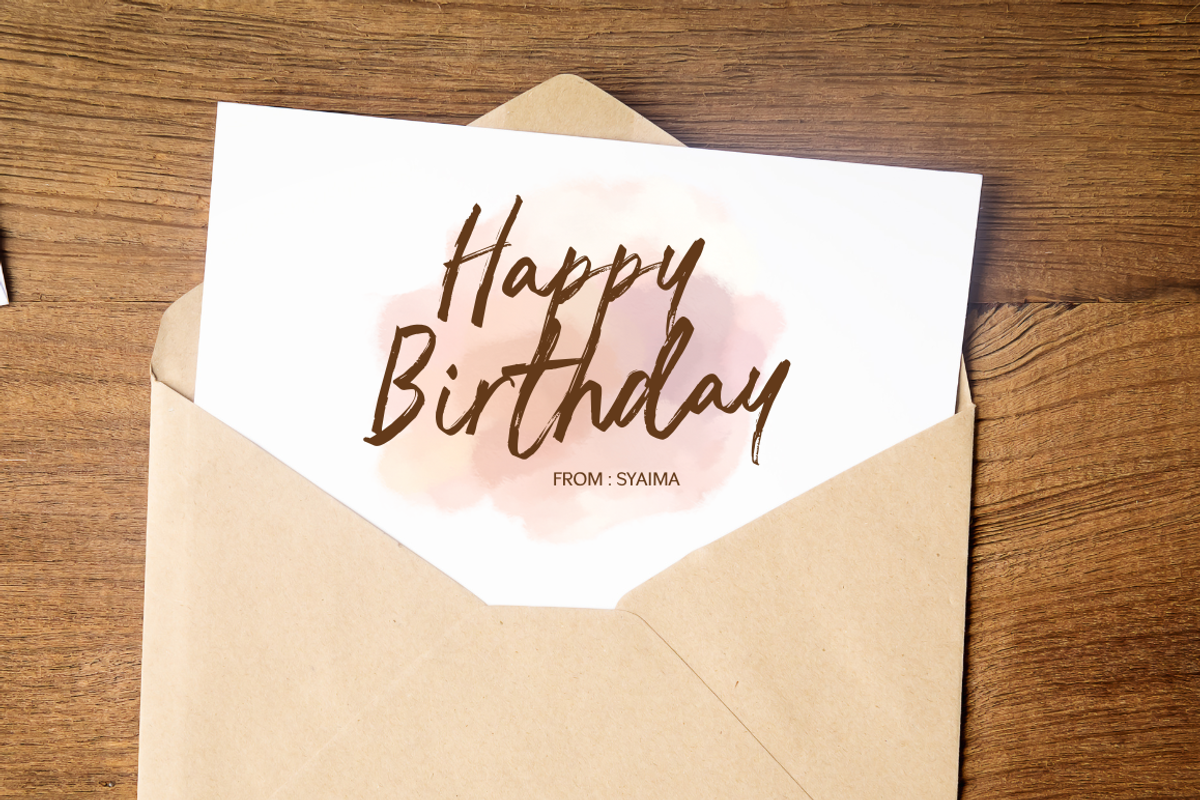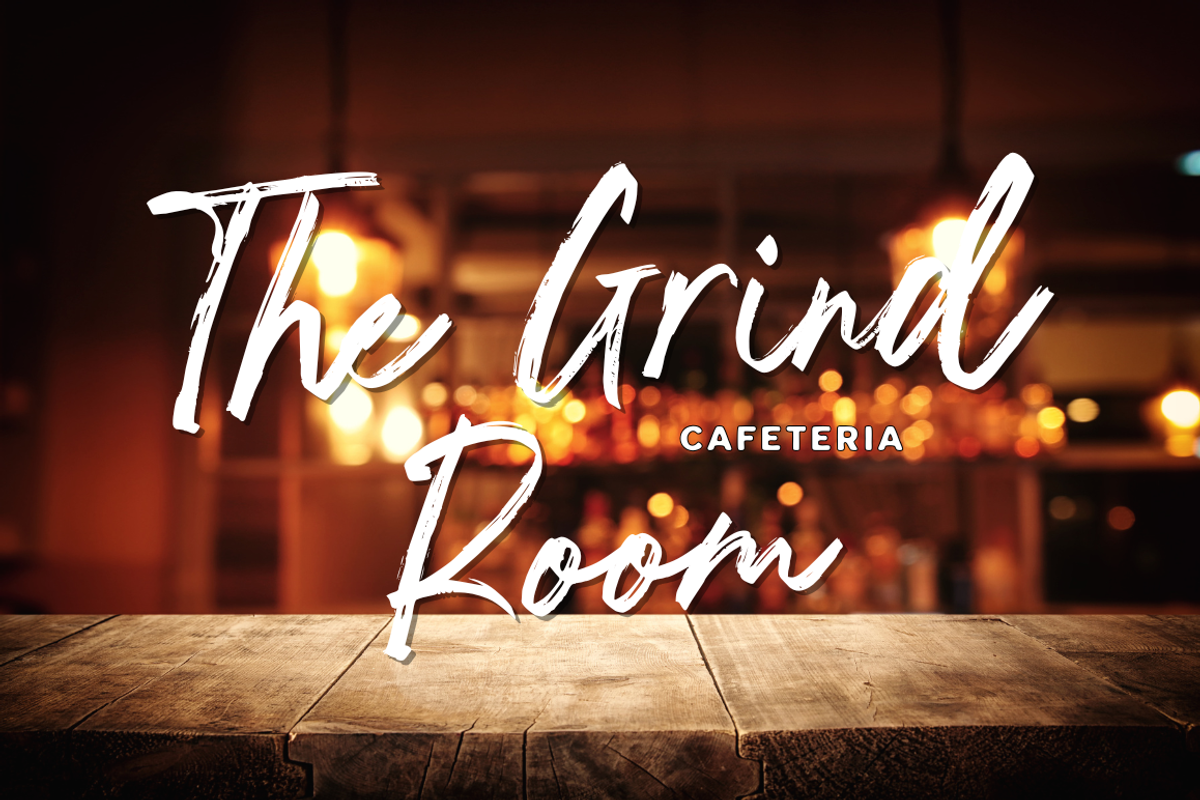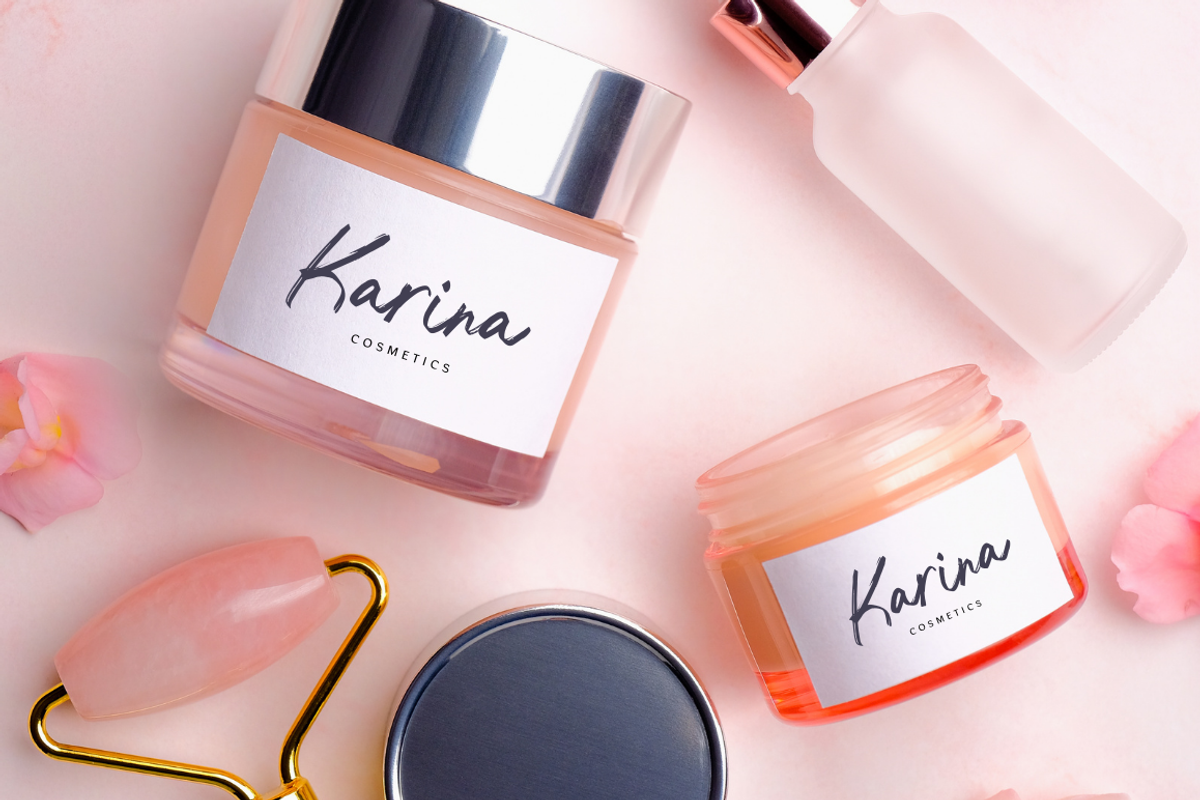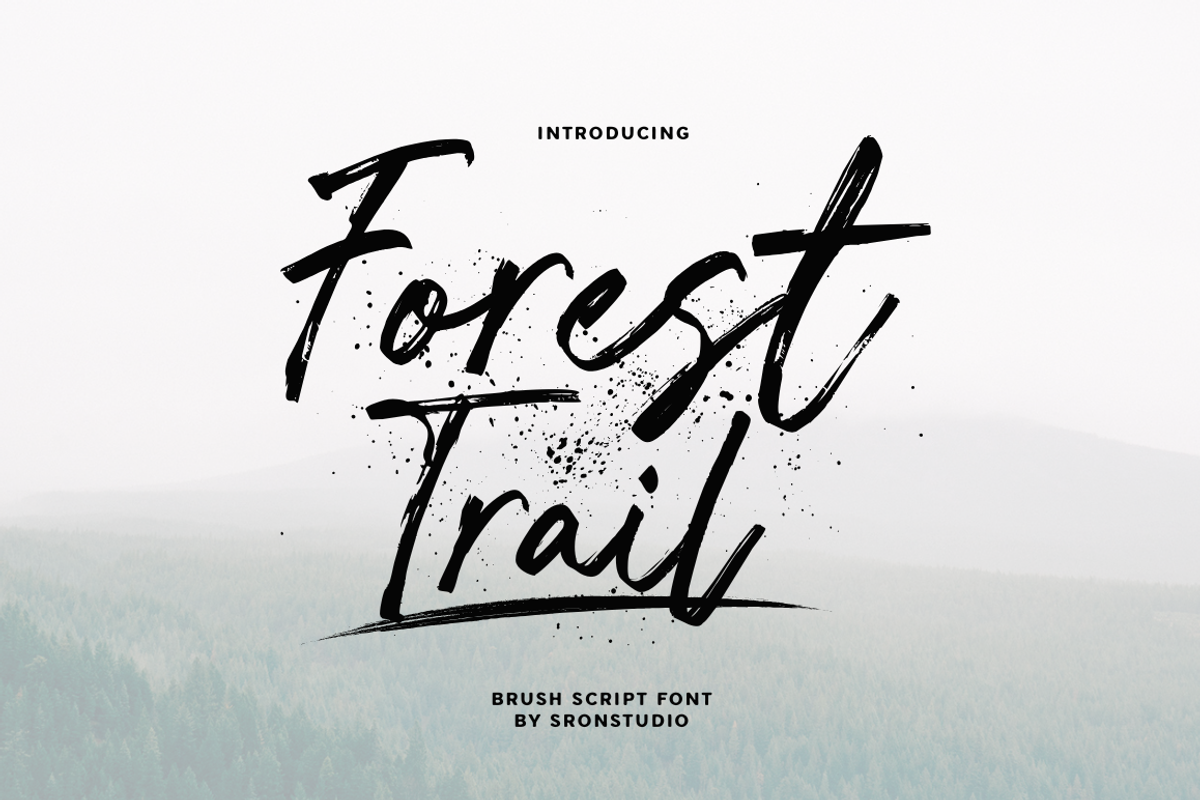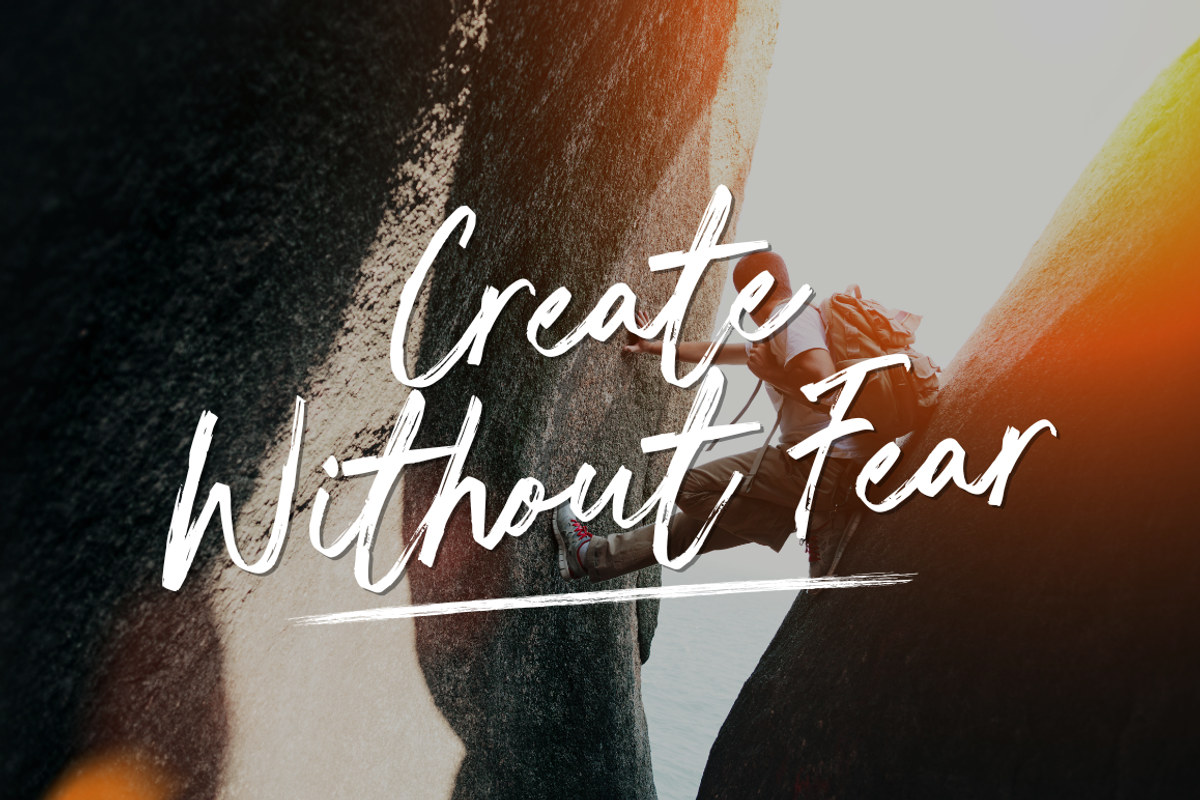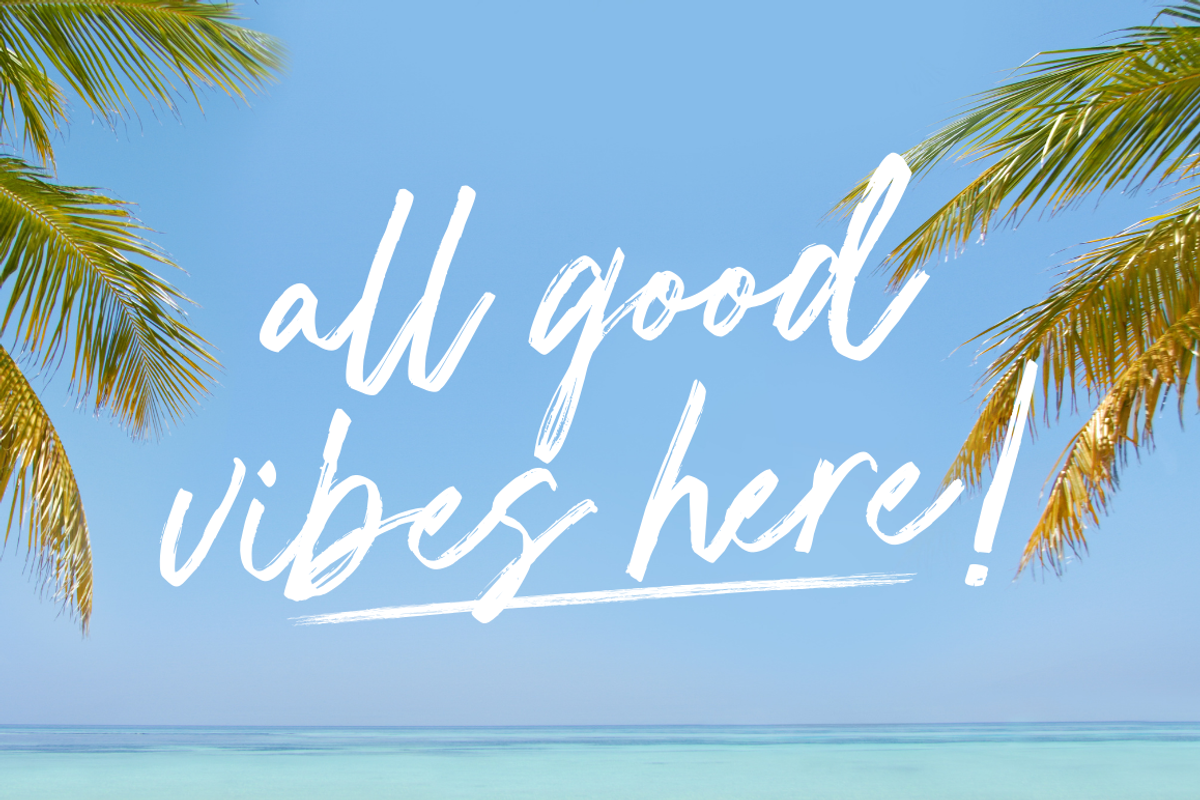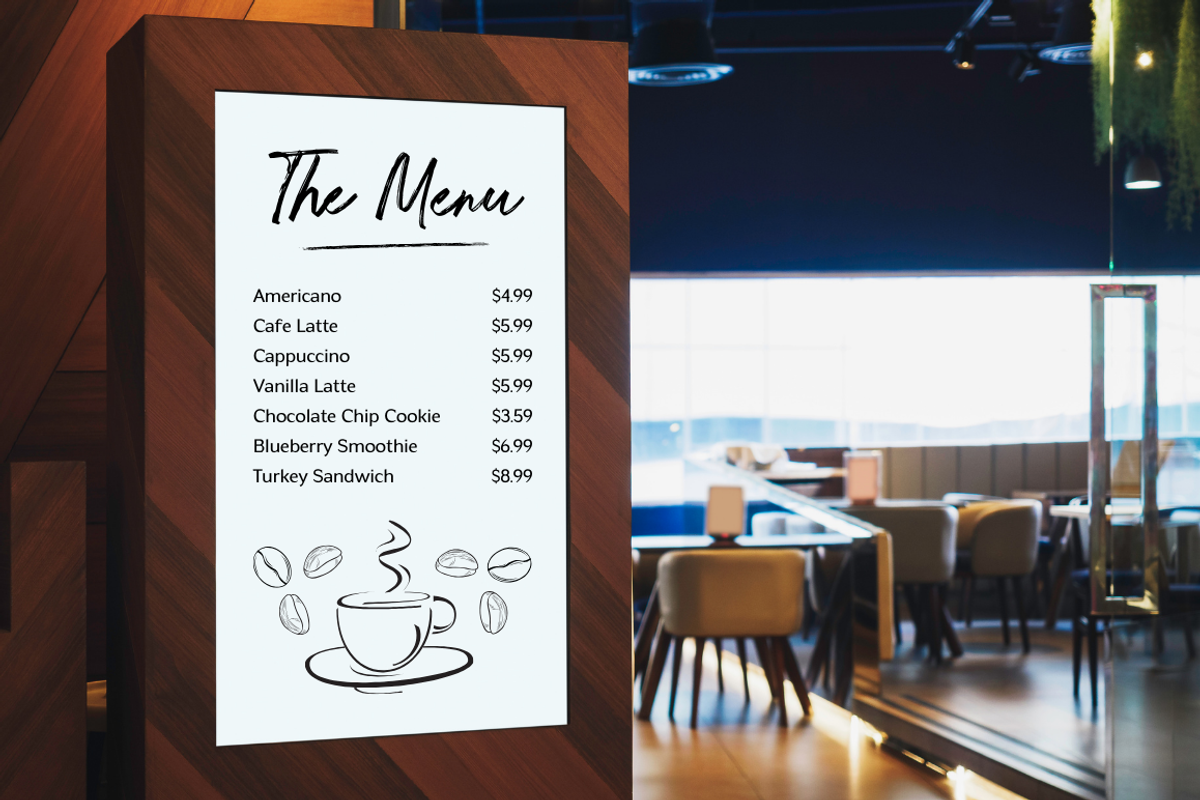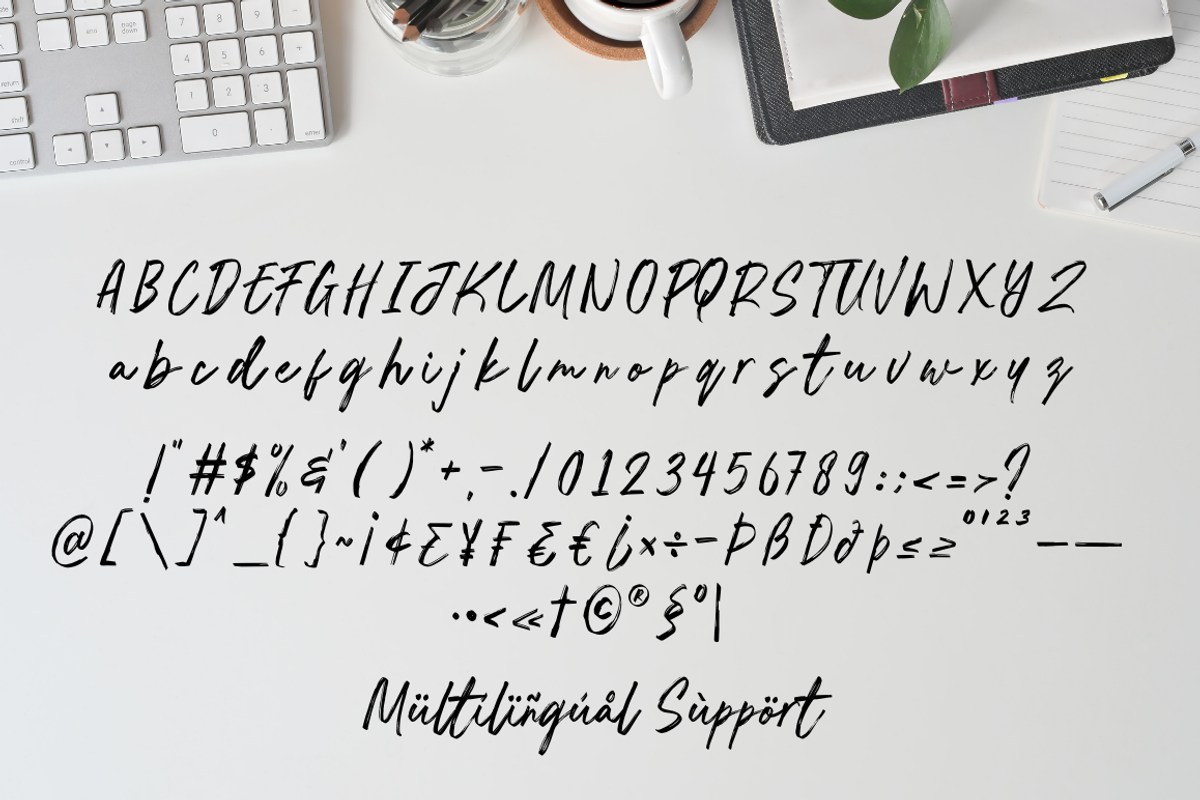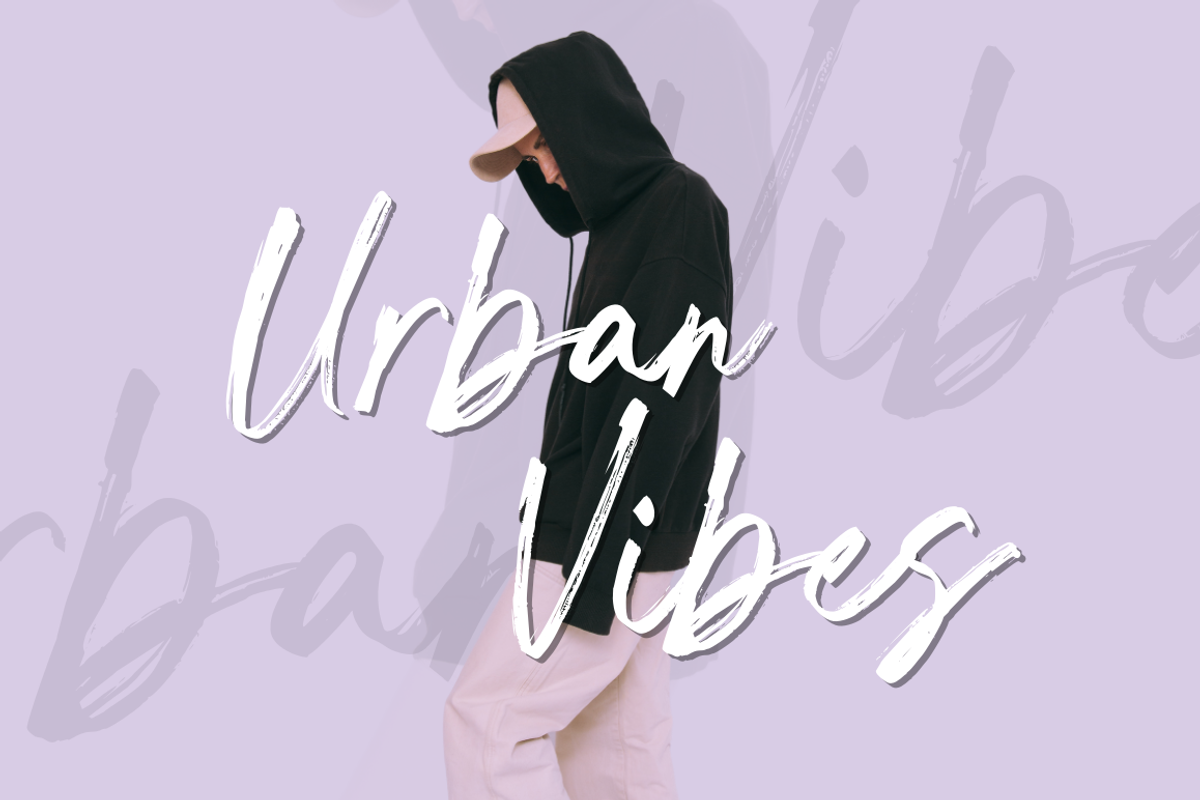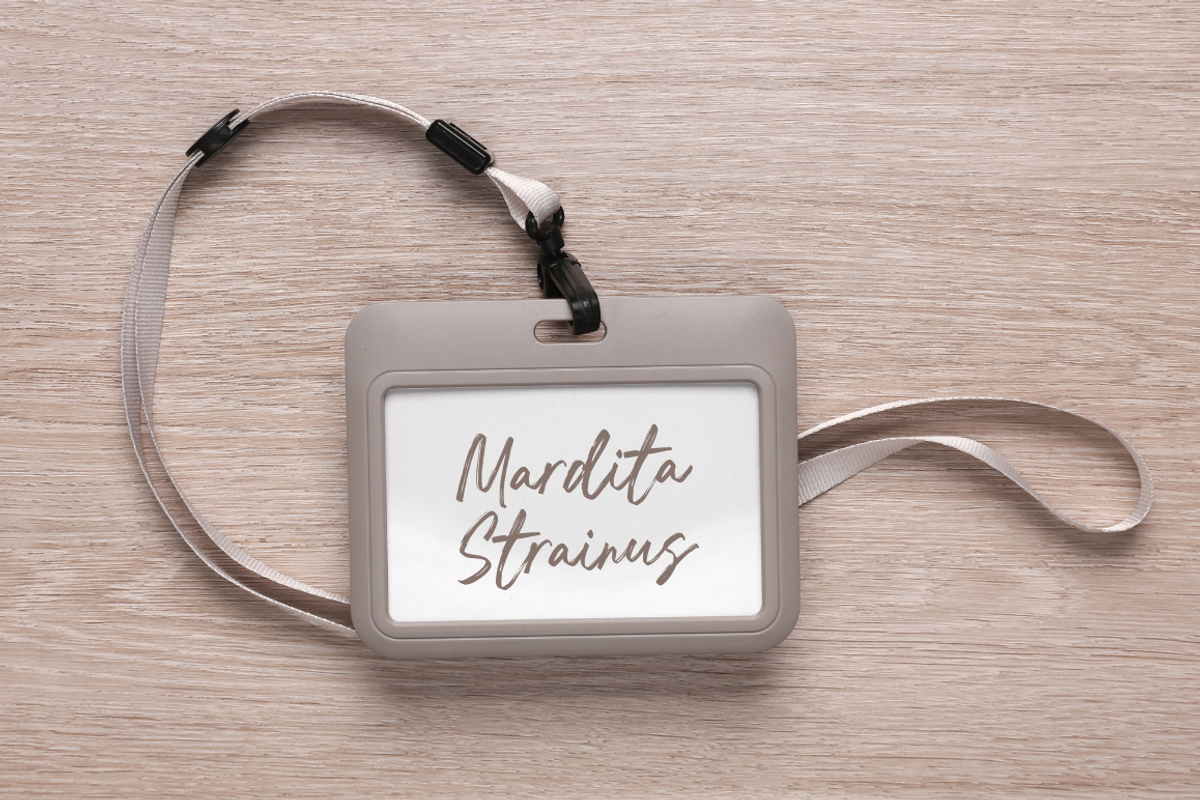
Forest Trail - Brush Script
Forest Trail is a bold and energetic brush script font that captures the spirit of adventure and the beauty of hand-drawn artistry. With its dynamic strokes and natural flow, this font is perfect for logos, posters, apparel, branding, and projects that need a rugged yet stylish touch.